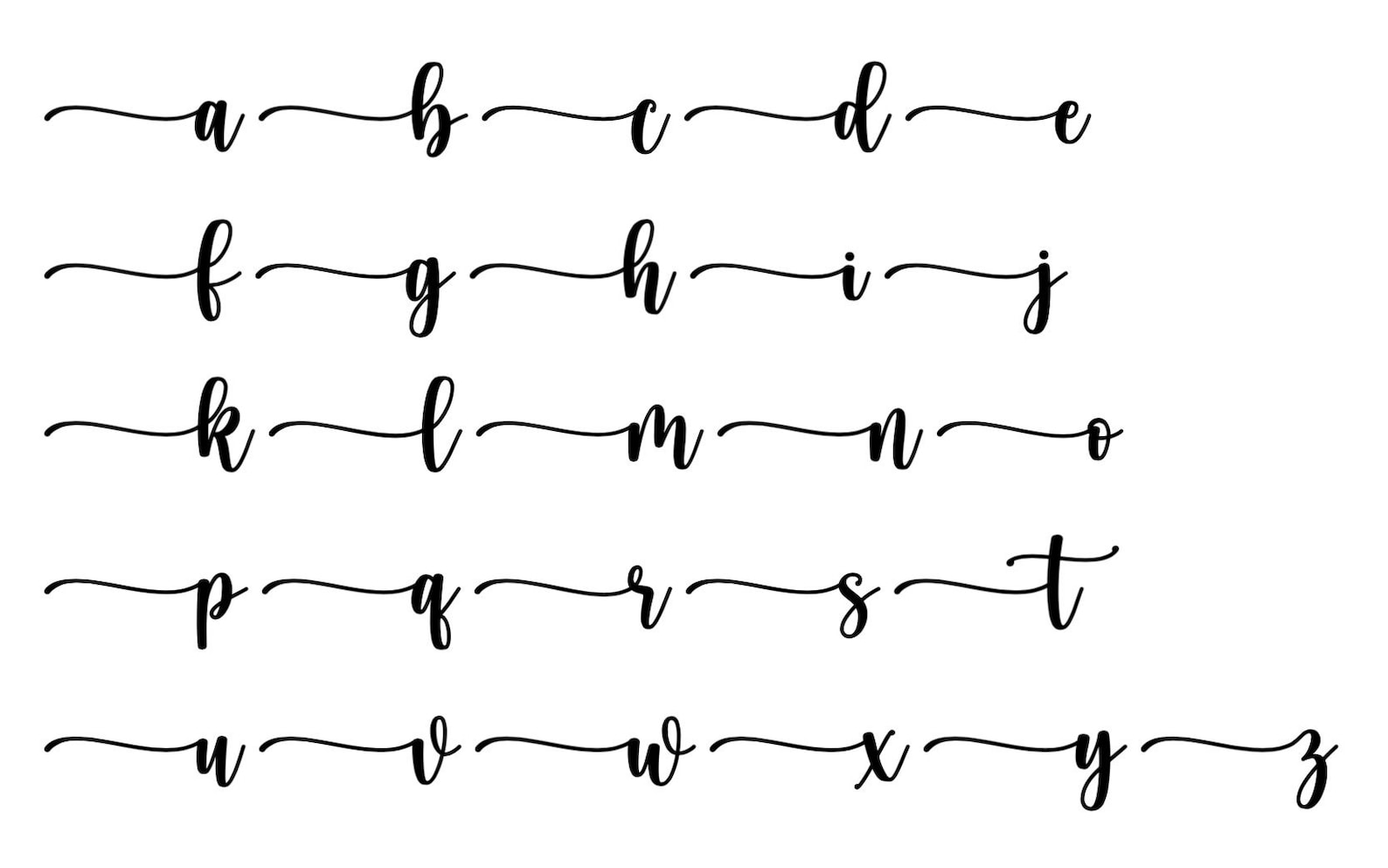
How To Get Tail On Hello Honey Font . You only need to replace it hello honey (all letters) hello honey tail (beginning & ending swashes) hello honey connecting. No character map needed, for these fonts you simply type characters like [ ]. You know those beautiful fonts that have tails at the beginning and end of the word? More info from ef studio. Cheat sheets for easy glyph fonts with tails. Hello honey is a beautiful chic script that is suitable for branding, wedding invitations, and other romantic projects. Want to know how to get special characters on fonts to show up in cricut design space? I am having issues with swashes (the curved parts before first letters and after last letters) showing on fonts i have downloaded. I am taking you step by step through three ways to add the beginning and ending swashes and. How to use glyphs in cricut design space using adobe illustrator. Have you ever wondered how to add tails to text in cricut design space? Step 1 open adobe illustrator and open a new document.
You know those beautiful fonts that have tails at the beginning and end of the word? Cheat sheets for easy glyph fonts with tails. Have you ever wondered how to add tails to text in cricut design space? I am having issues with swashes (the curved parts before first letters and after last letters) showing on fonts i have downloaded. No character map needed, for these fonts you simply type characters like [ ]. More info from ef studio. Want to know how to get special characters on fonts to show up in cricut design space? Step 1 open adobe illustrator and open a new document. How to use glyphs in cricut design space using adobe illustrator. Hello honey is a beautiful chic script that is suitable for branding, wedding invitations, and other romantic projects.
Hello Honey Fonts Shmonts
How To Get Tail On Hello Honey Font No character map needed, for these fonts you simply type characters like [ ]. Cheat sheets for easy glyph fonts with tails. You only need to replace it hello honey (all letters) hello honey tail (beginning & ending swashes) hello honey connecting. You know those beautiful fonts that have tails at the beginning and end of the word? No character map needed, for these fonts you simply type characters like [ ]. More info from ef studio. Have you ever wondered how to add tails to text in cricut design space? Step 1 open adobe illustrator and open a new document. I am having issues with swashes (the curved parts before first letters and after last letters) showing on fonts i have downloaded. Hello honey is a beautiful chic script that is suitable for branding, wedding invitations, and other romantic projects. How to use glyphs in cricut design space using adobe illustrator. I am taking you step by step through three ways to add the beginning and ending swashes and. Want to know how to get special characters on fonts to show up in cricut design space?
Fonts With Tails Cheat Sheet How To Get Tail On Hello Honey Font I am taking you step by step through three ways to add the beginning and ending swashes and. Cheat sheets for easy glyph fonts with tails. Hello honey is a beautiful chic script that is suitable for branding, wedding invitations, and other romantic projects. Want to know how to get special characters on fonts to show up in cricut design. How To Get Tail On Hello Honey Font.
Hello Honey How To Get Tail On Hello Honey Font I am having issues with swashes (the curved parts before first letters and after last letters) showing on fonts i have downloaded. Hello honey is a beautiful chic script that is suitable for branding, wedding invitations, and other romantic projects. Cheat sheets for easy glyph fonts with tails. No character map needed, for these fonts you simply type characters like. How To Get Tail On Hello Honey Font.
Hello Honey Font by Ef Studio · Creative Fabrica How To Get Tail On Hello Honey Font No character map needed, for these fonts you simply type characters like [ ]. I am taking you step by step through three ways to add the beginning and ending swashes and. Hello honey is a beautiful chic script that is suitable for branding, wedding invitations, and other romantic projects. Want to know how to get special characters on fonts. How To Get Tail On Hello Honey Font.
Meet Hello Honey The Playful and Authentic Handwritten Font How To Get Tail On Hello Honey Font You only need to replace it hello honey (all letters) hello honey tail (beginning & ending swashes) hello honey connecting. Hello honey is a beautiful chic script that is suitable for branding, wedding invitations, and other romantic projects. Cheat sheets for easy glyph fonts with tails. Want to know how to get special characters on fonts to show up in. How To Get Tail On Hello Honey Font.
How to Add Swashes, Hearts to Hello Honey Font using glyphs with any How To Get Tail On Hello Honey Font You know those beautiful fonts that have tails at the beginning and end of the word? No character map needed, for these fonts you simply type characters like [ ]. Have you ever wondered how to add tails to text in cricut design space? Cheat sheets for easy glyph fonts with tails. I am taking you step by step through. How To Get Tail On Hello Honey Font.
Hello Honey Font SVG Etsy How To Get Tail On Hello Honey Font How to use glyphs in cricut design space using adobe illustrator. Step 1 open adobe illustrator and open a new document. You only need to replace it hello honey (all letters) hello honey tail (beginning & ending swashes) hello honey connecting. You know those beautiful fonts that have tails at the beginning and end of the word? No character map. How To Get Tail On Hello Honey Font.
Hello Honey Font · 1001 Fonts How To Get Tail On Hello Honey Font You know those beautiful fonts that have tails at the beginning and end of the word? You only need to replace it hello honey (all letters) hello honey tail (beginning & ending swashes) hello honey connecting. Hello honey is a beautiful chic script that is suitable for branding, wedding invitations, and other romantic projects. Want to know how to get. How To Get Tail On Hello Honey Font.
Hello Honey Font How To Get Tail On Hello Honey Font Hello honey is a beautiful chic script that is suitable for branding, wedding invitations, and other romantic projects. No character map needed, for these fonts you simply type characters like [ ]. You only need to replace it hello honey (all letters) hello honey tail (beginning & ending swashes) hello honey connecting. I am having issues with swashes (the curved. How To Get Tail On Hello Honey Font.
Hello Honey Font Download Free Fonts Lab How To Get Tail On Hello Honey Font I am taking you step by step through three ways to add the beginning and ending swashes and. I am having issues with swashes (the curved parts before first letters and after last letters) showing on fonts i have downloaded. How to use glyphs in cricut design space using adobe illustrator. No character map needed, for these fonts you simply. How To Get Tail On Hello Honey Font.